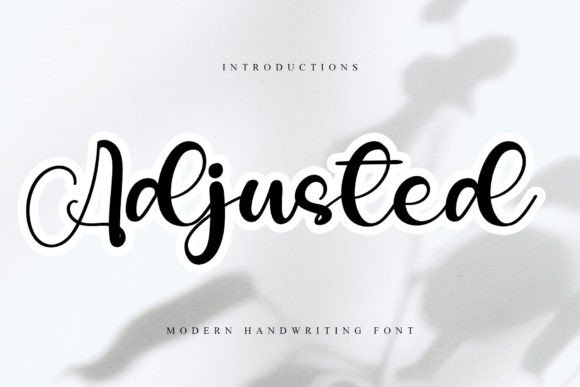
The Magic of Adjusted Font: A Holiday Design Delight
I still remember the holiday season when I was working on a project to create a set of festive greeting cards for a client. I had all the design elements ready – the colors, the graphics, and the text – but something was missing. That’s when I realized I needed a font that would capture the spirit of the holiday season. After hours of searching, I stumbled upon Adjusted Font, and it was love at first sight! ✨
With its decorative elements and whimsical flair, Adjusted Font added a touch of enchantment to my designs. It was perfect for greeting cards, gift tags, and holiday-themed projects, bringing a cheerful and nostalgic ambiance to my words. In this article, I’ll share my experience with Adjusted Font, its features, and how to make the most of it in your designs.
An Honest Review of Adjusted Font
- ✨ Festive and merry vibe that’s perfect for holiday designs
- ✅ Decorative elements and whimsical flair that add a touch of enchantment
- 🎉 Wide range of uses, from greeting cards to holiday-themed projects
- 👍 Easy to read and understand, even in smaller sizes
While Adjusted Font is a fantastic addition to any design project, there are a few things to keep in mind: 🤔
- ⚠️ Limited use outside of holiday-themed projects – it might not be the best fit for other design projects
- ⚠️ Some characters may not work well in very small sizes – it’s best used in larger sizes for maximum impact
The Story Behind Adjusted Font
Adjusted Font was designed by a team of creatives who wanted to capture the spirit of the holiday season in a font. Inspired by traditional holiday decorations and typography, they created a font that’s both festive and elegant. With its decorative elements and whimsical flair, Adjusted Font is perfect for adding a touch of holiday magic to your designs.
Q: What is Adjusted Font?
A: Adjusted Font is a festive and merry typeface that’s perfect for holiday designs, greeting cards, gift tags, and other holiday-themed projects.
Q: Is Adjusted Font easy to read?
A: Yes, Adjusted Font is designed to be easy to read and understand, even in smaller sizes.